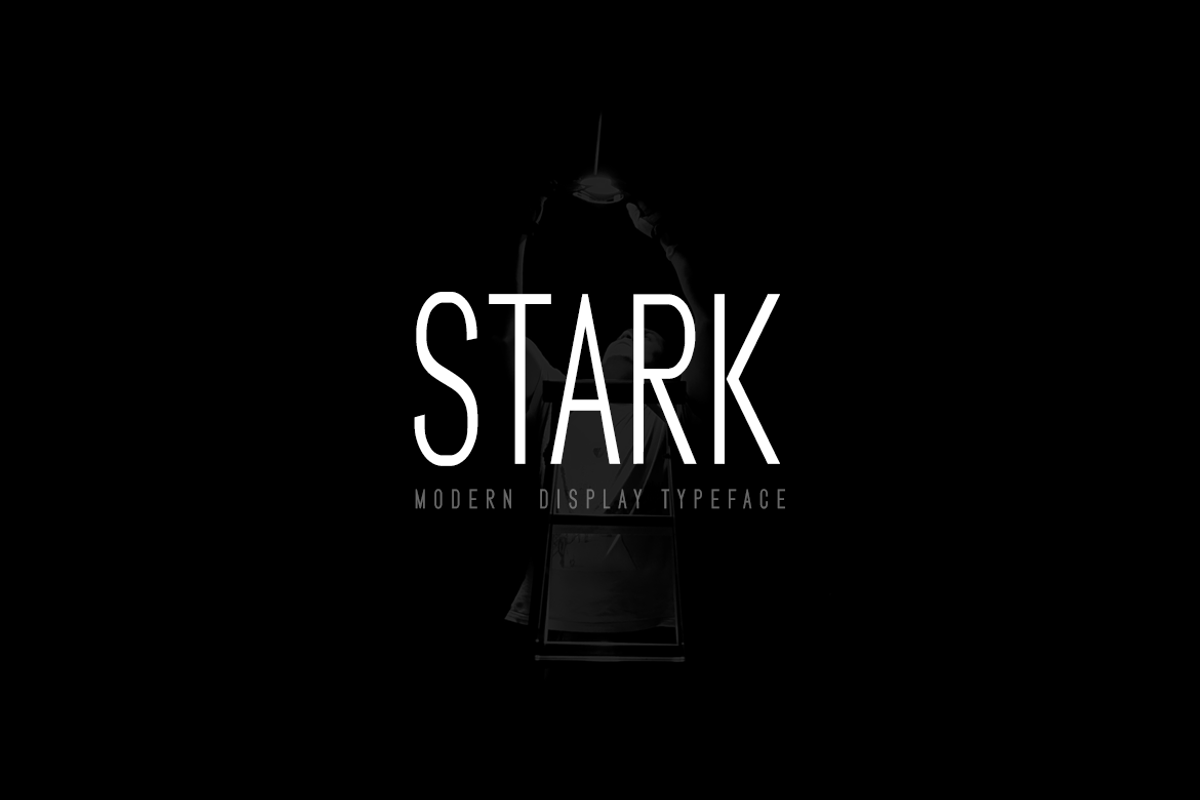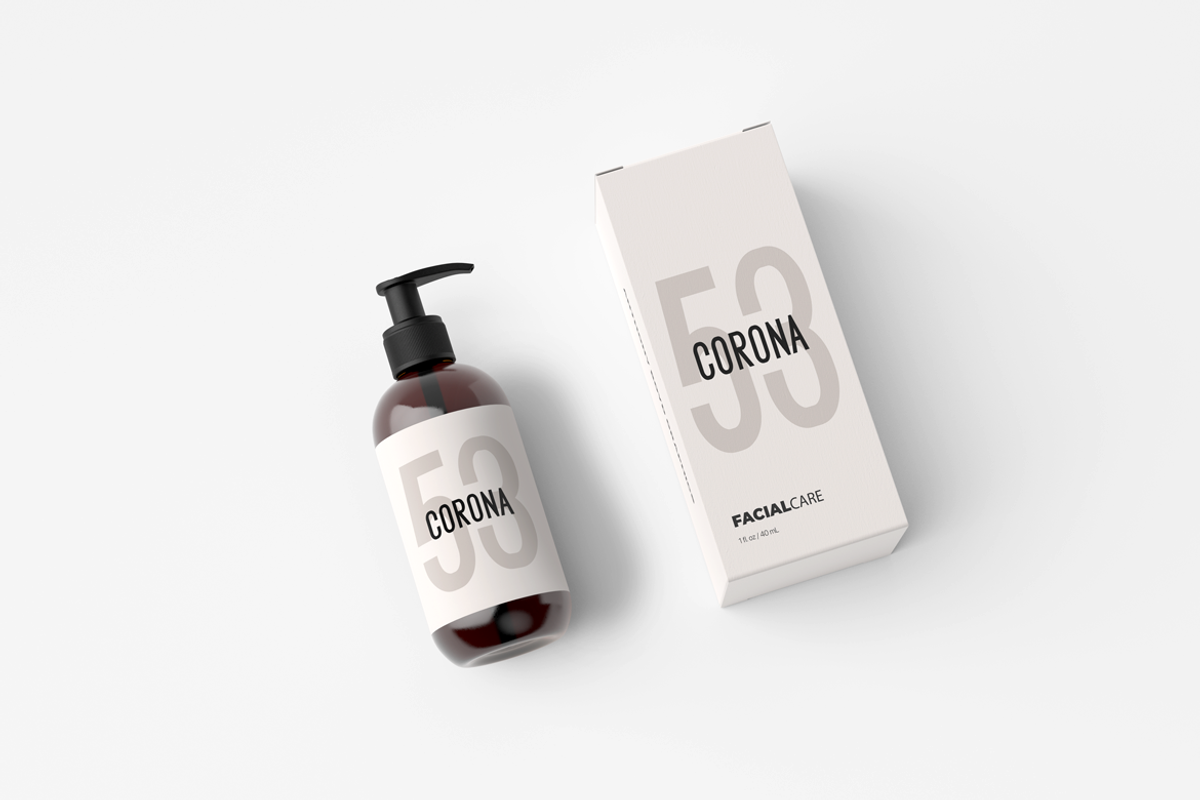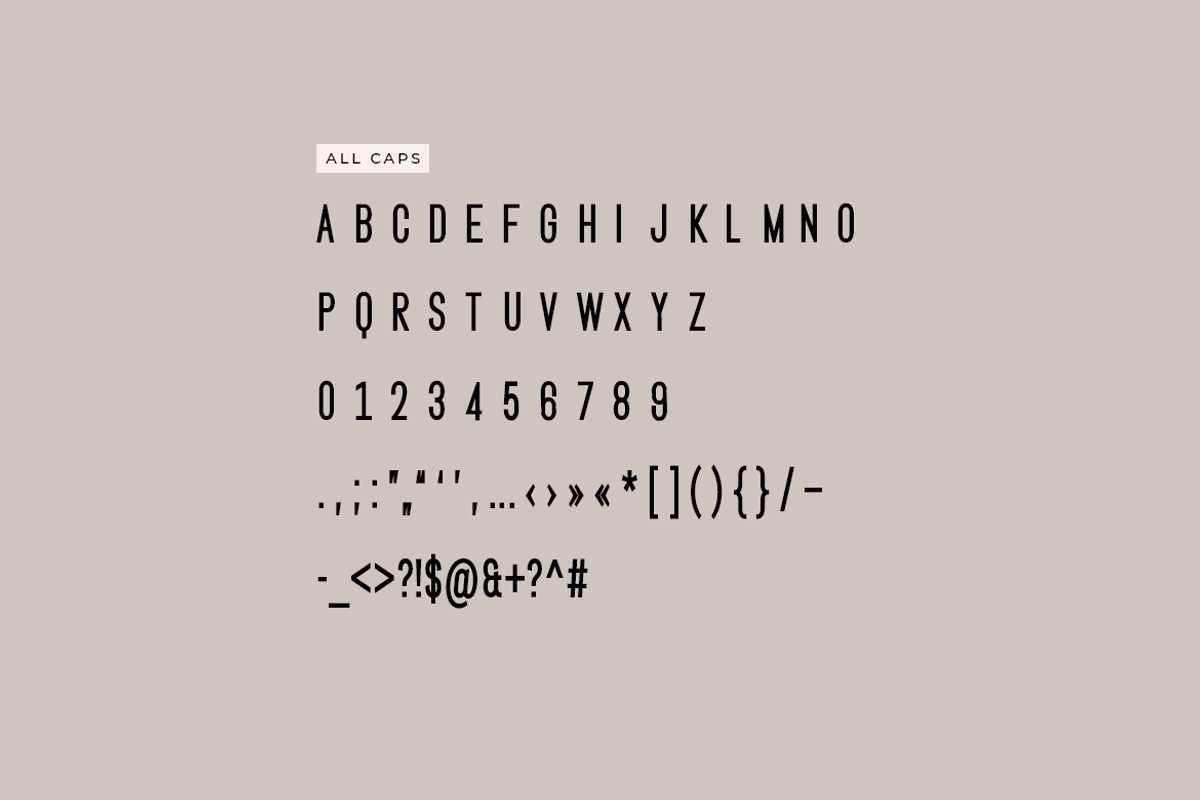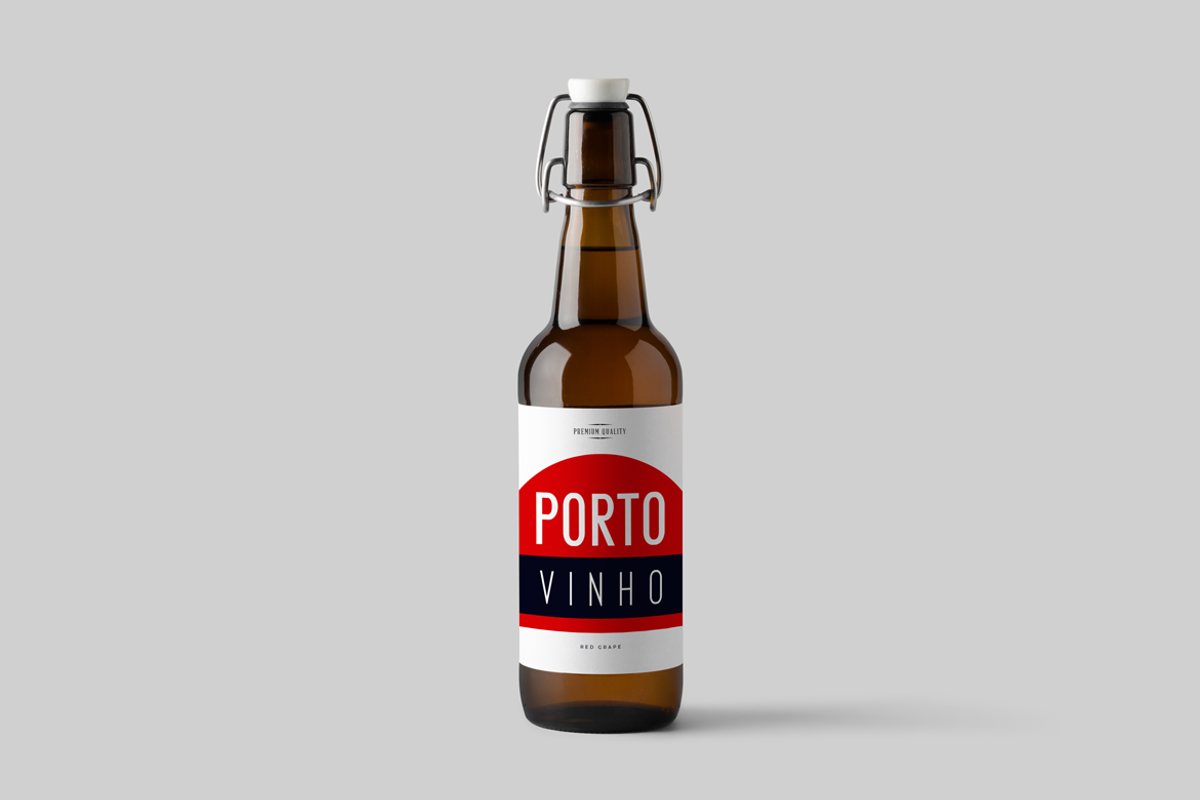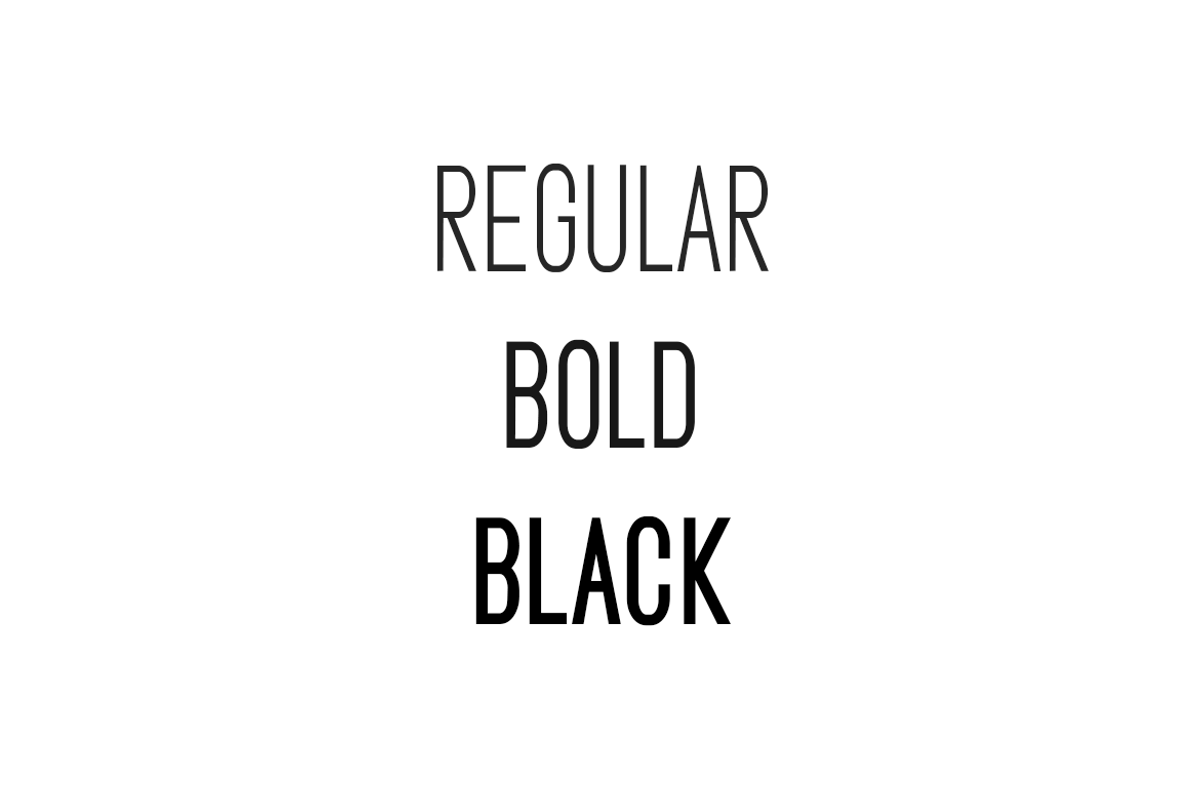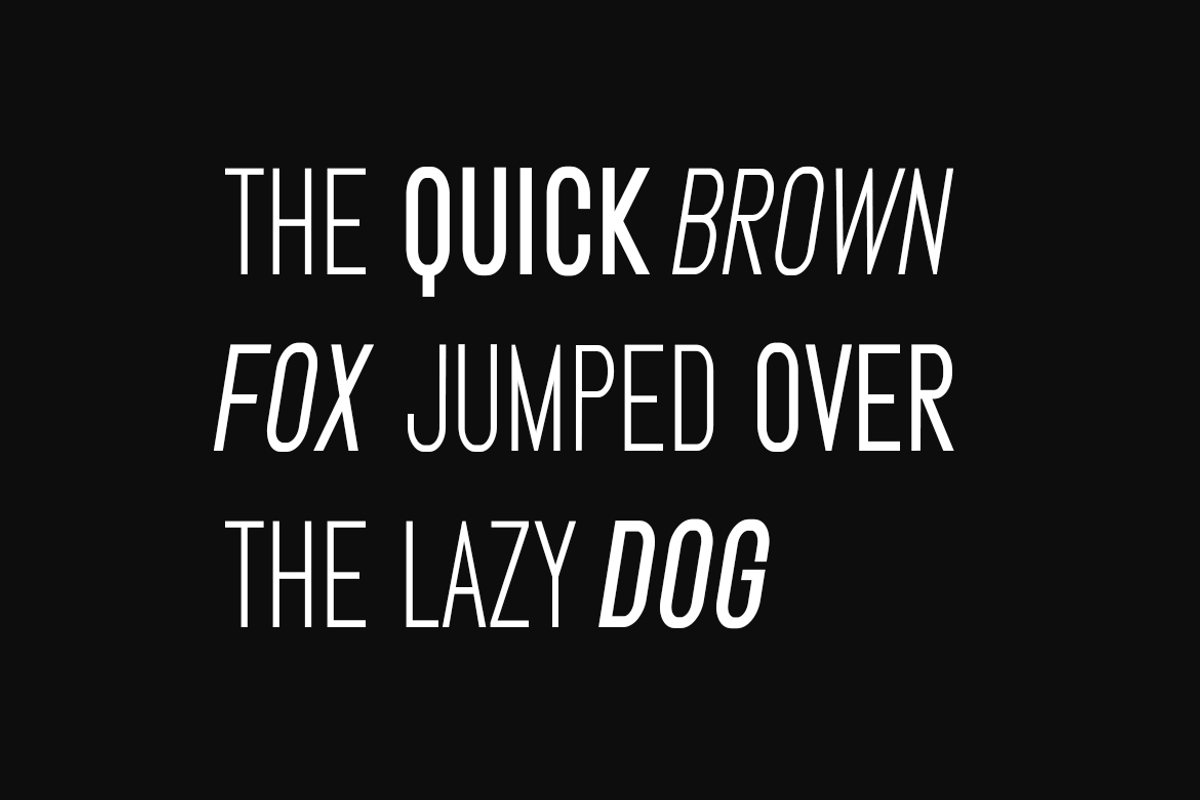
STARK - Display / Headline Typeface
Stark is a unique typeface for logo, branding, headlines, big text & display usage. This modern all-caps typeface is inspired from movie posters and marketing themes. This typeface works very well with any kind of spacing options. The typeface is best suited for creating outstanding logos, promotional content and marketing graphics that can really grab attention from your visitors. Please see the examples shown above to get an idea about the capability of this typeface.
Stark comes as 3 weight(Regular, Bold and Black) and their Italic versions (Italic, Bold Italic and Black Italic). The pack contains OTF, TTF and Web Fonts (all EOT, SVG, TTF, WOFF, WOFF2 everything is included).